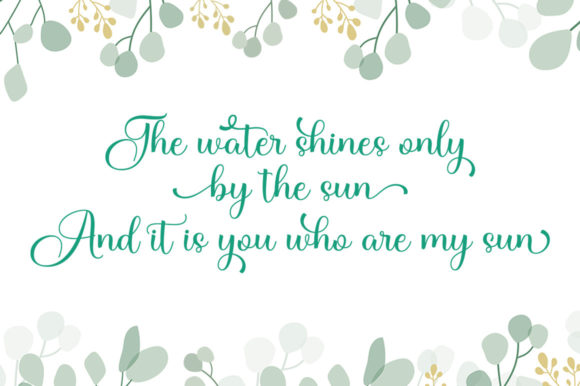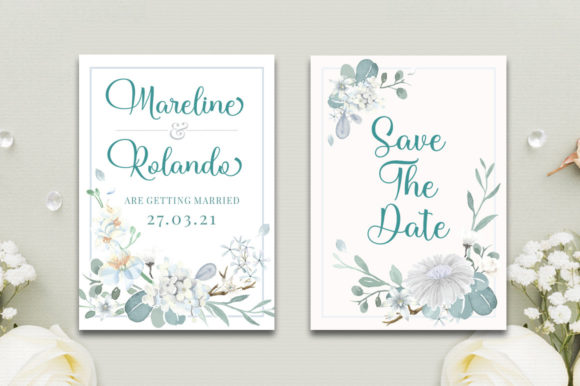
Belia Anestasha Font
db-ku.com - Script & Handwritten -- Belia Anestasha is a sweet, round lettered and elegant handwritten font. It looks beautiful on a variety of designs requiring a personalized style, such as wedding invitations, thank you cards, weddings, greeting cards, logos and so on. This font is PUA encoded which means you can access all of the glyphs and swashes with ease!